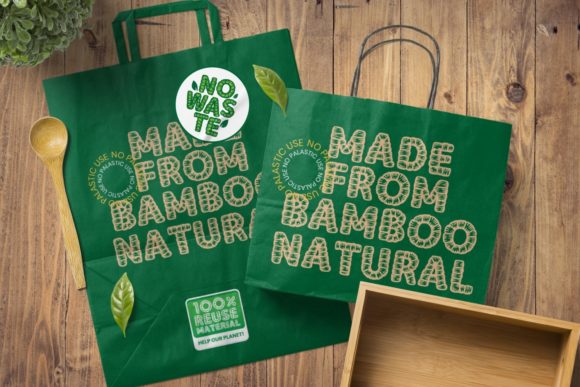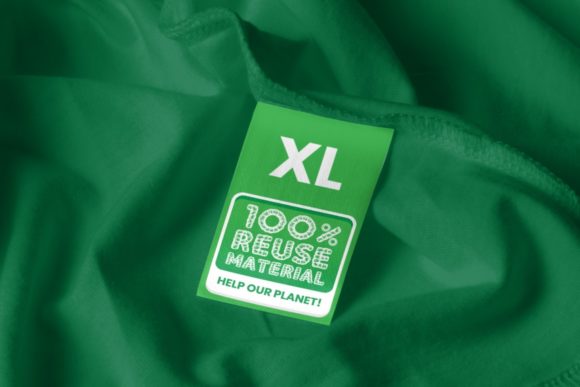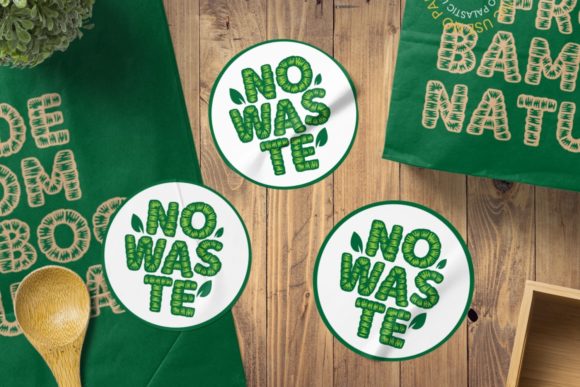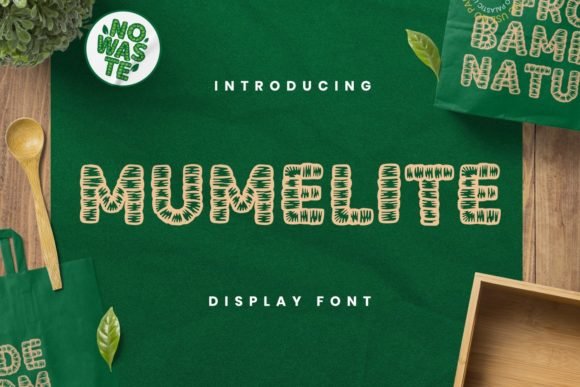
Introduction to Mumelite Font
Mumelite is a cool and interestingly designed display font.
Whether you use it for cartoon related designs, children games or just any creation that requires a lovely touch, this font will be an amazing choice .